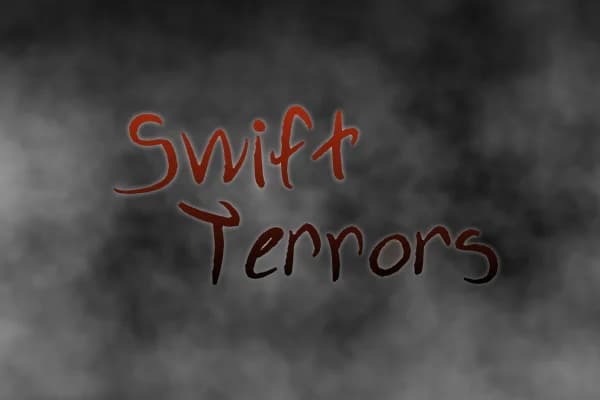
About Swift Terrors Font
Swift Terrors Font by Marlee Pagels is a handwritten script crafted to inject visual menace into your typography projects. With its asymmetrical letterforms and deliberately chaotic character variations, this typeface captures the authentic unsettling energy of genuine horror aesthetics. The design excels for Halloween invitation suites, where the irregular rhythm and unpredictable spacing create genuine unease, making it ideal for haunted house promotional materials, spooky event announcements, and dark-themed party invitations that demand immediate attention from viewers. The font's extended character support and English-language optimization provide practical utility despite its sinister appearance. Each letter features intentional randomization, ensuring no two instances appear identical, which strengthens the hand-drawn, viscerally organic feel essential for dark fantasy book covers, thriller movie poster designs, and horror podcast cover artwork. Whether you're developing creepy social media graphics, designing eerie merchandise packaging for indie horror brands, creating unsettling promotional collateral, or developing horror-game typography, the typeface's inherent unpredictability prevents your layouts from feeling static or overly polished, qualities that genuinely serve the horror and dark fantasy genre. Swift Terrors Font brings authentic personality and character depth to horror-focused branding projects that demand more sophistication than standard typefaces typically deliver. Discover this distinctively unsettling typeface on Creative Fabrica and transform your vision into reality.
Swift Terrors Font is a script font that shines as a display or heading face. Pair it with a clean sans-serif or serif font for body text β the contrast creates a clear hierarchy while the two styles stay balanced and easy to read.